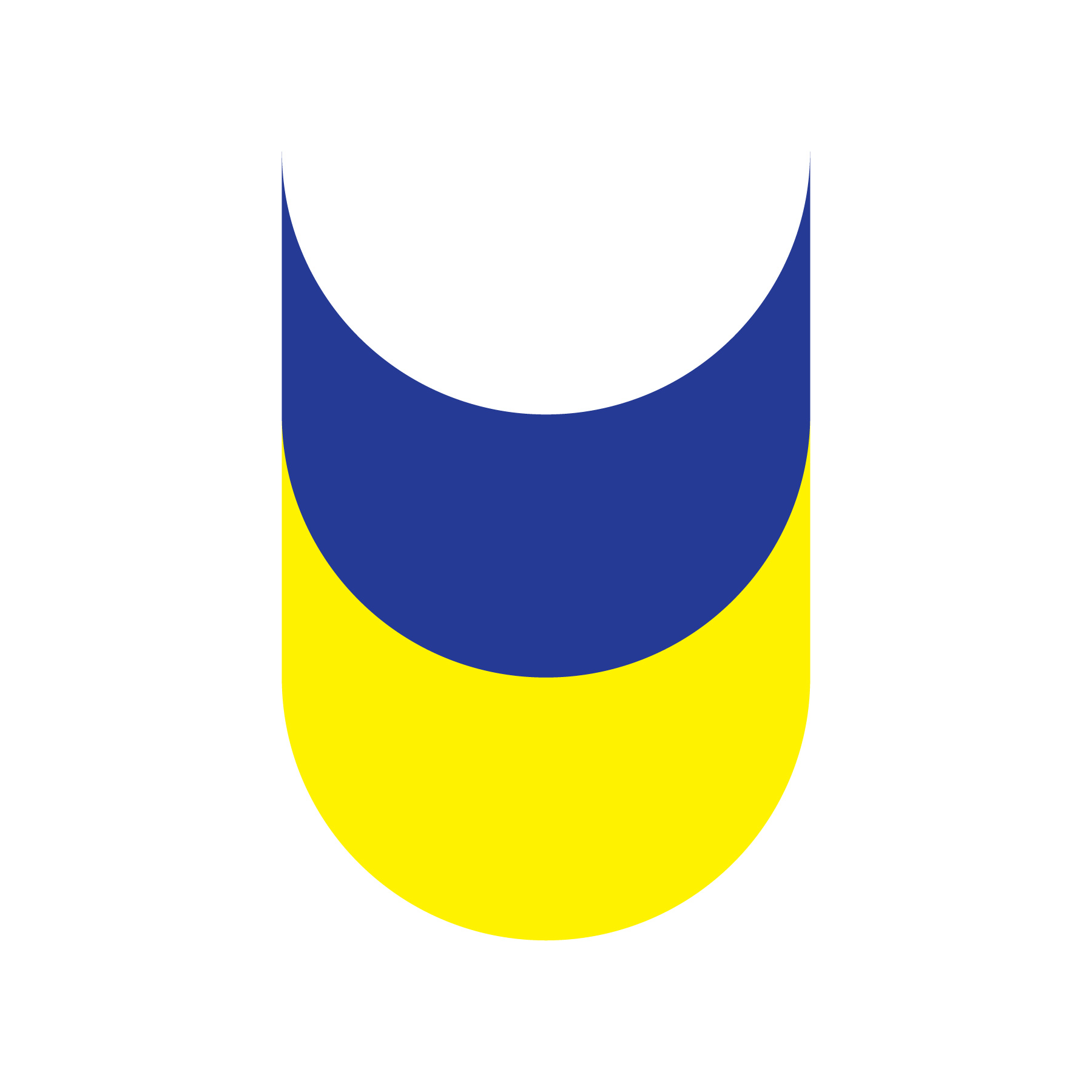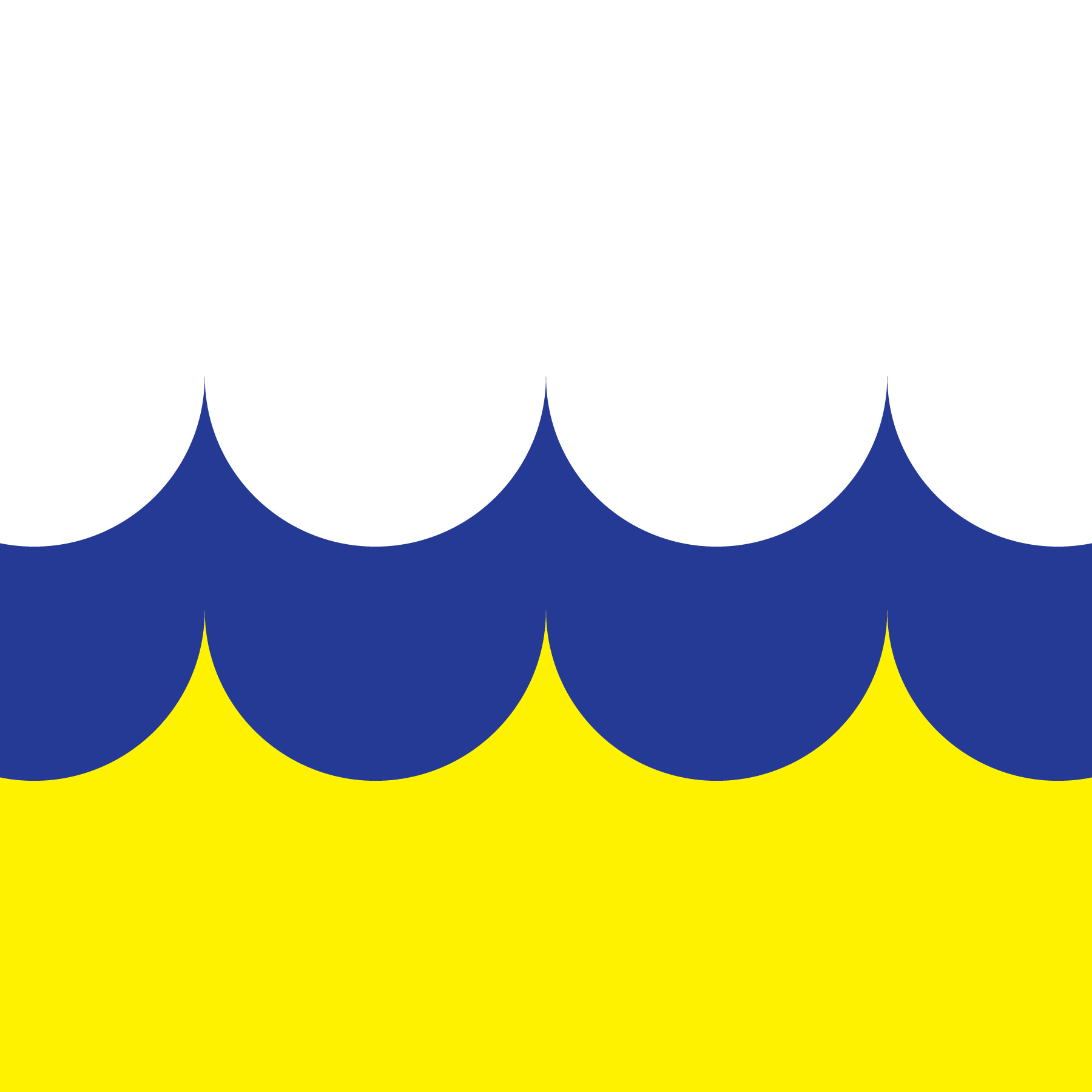
Stand with Ukraine
Graphic Arts & Type supports Ukraine and the freedom of Ukrainians. Here’s a geometric ‘U” and wave pattern created in the Ukrainian colours.
Ukraine two colour U
Wave pattern